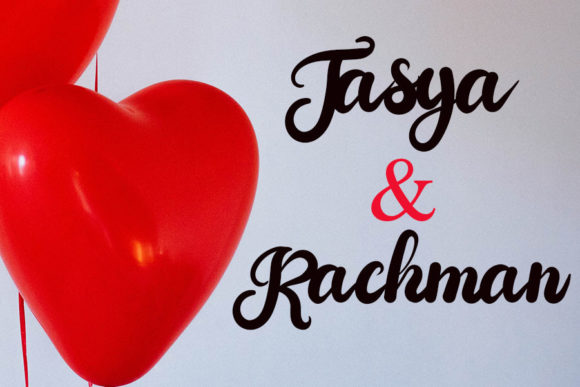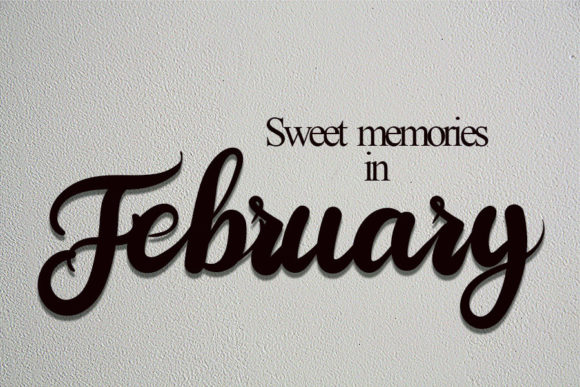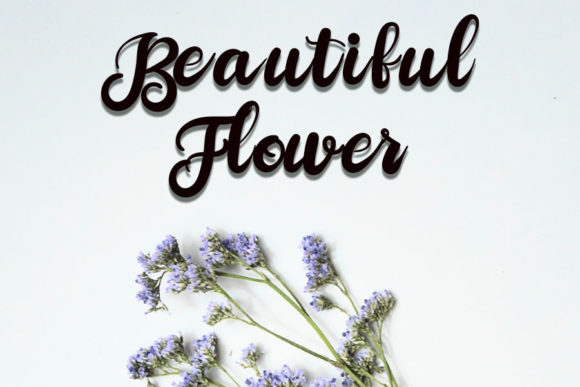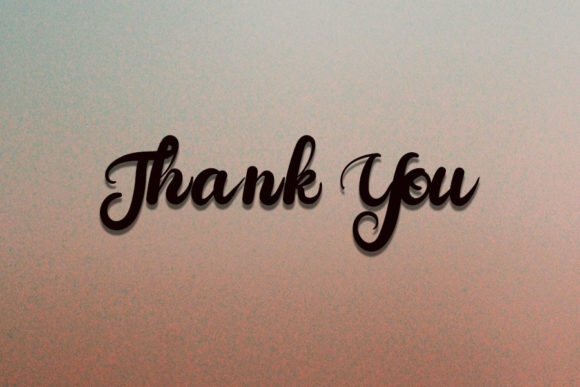
One Heart Font
About One Heart Font
One Heart is an enchanting handwritten font. This versatile typeface has a wide spectrum of applications ranging from greeting cards to headlines and is guaranteed to add a romantic feel to your next project.